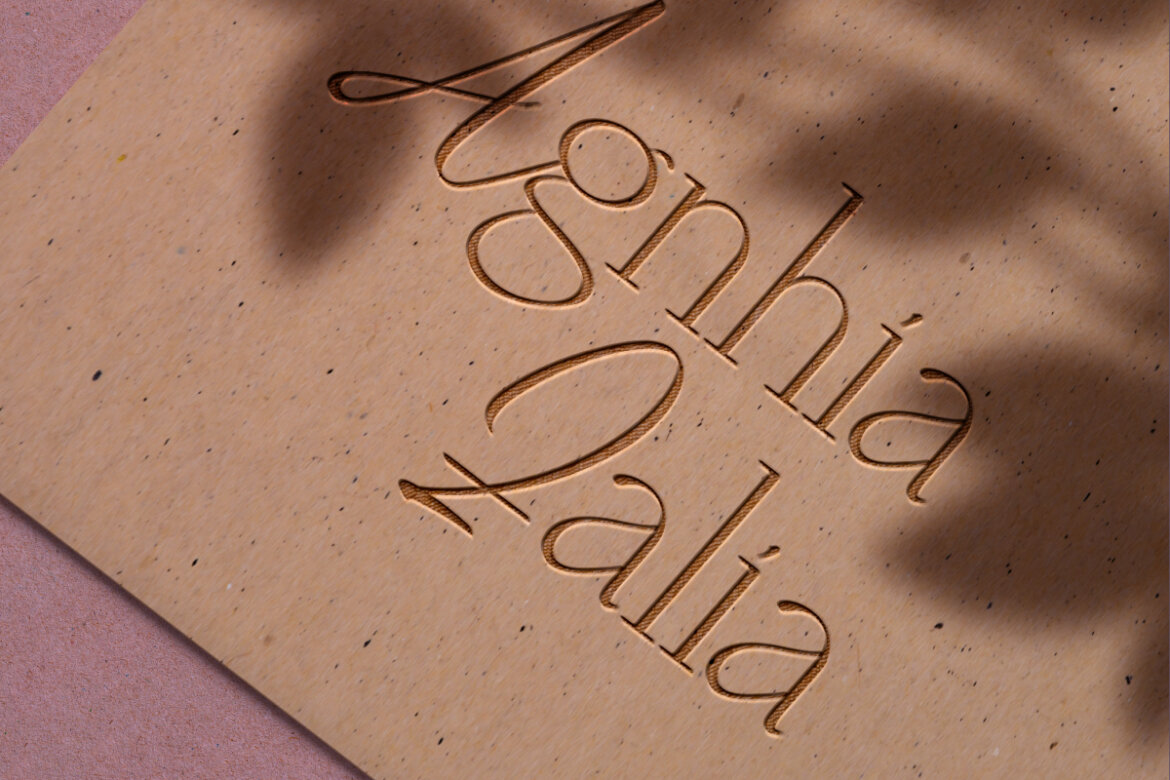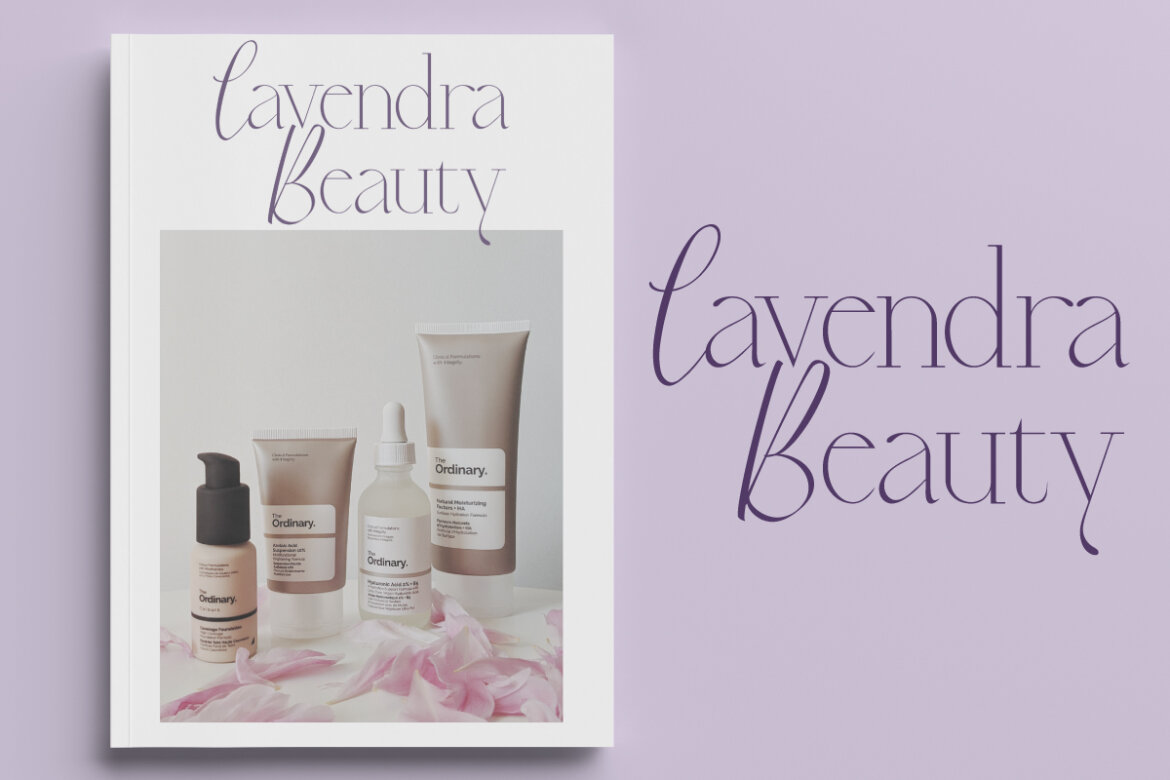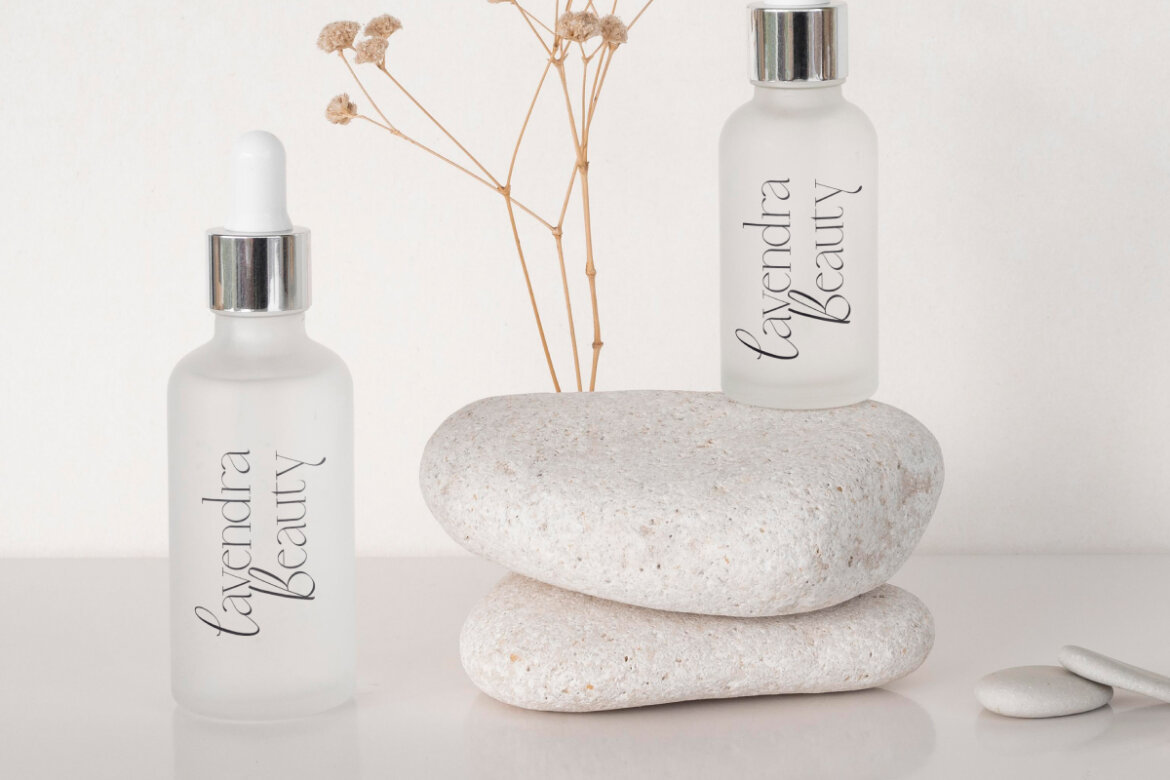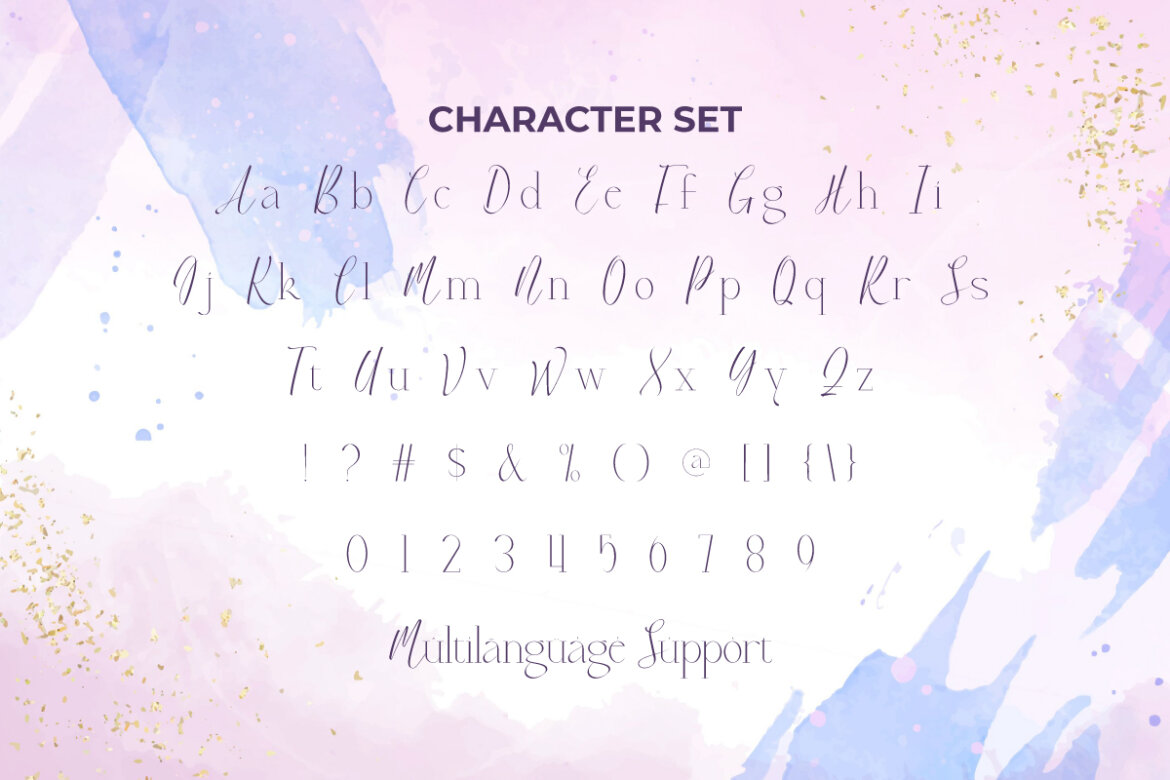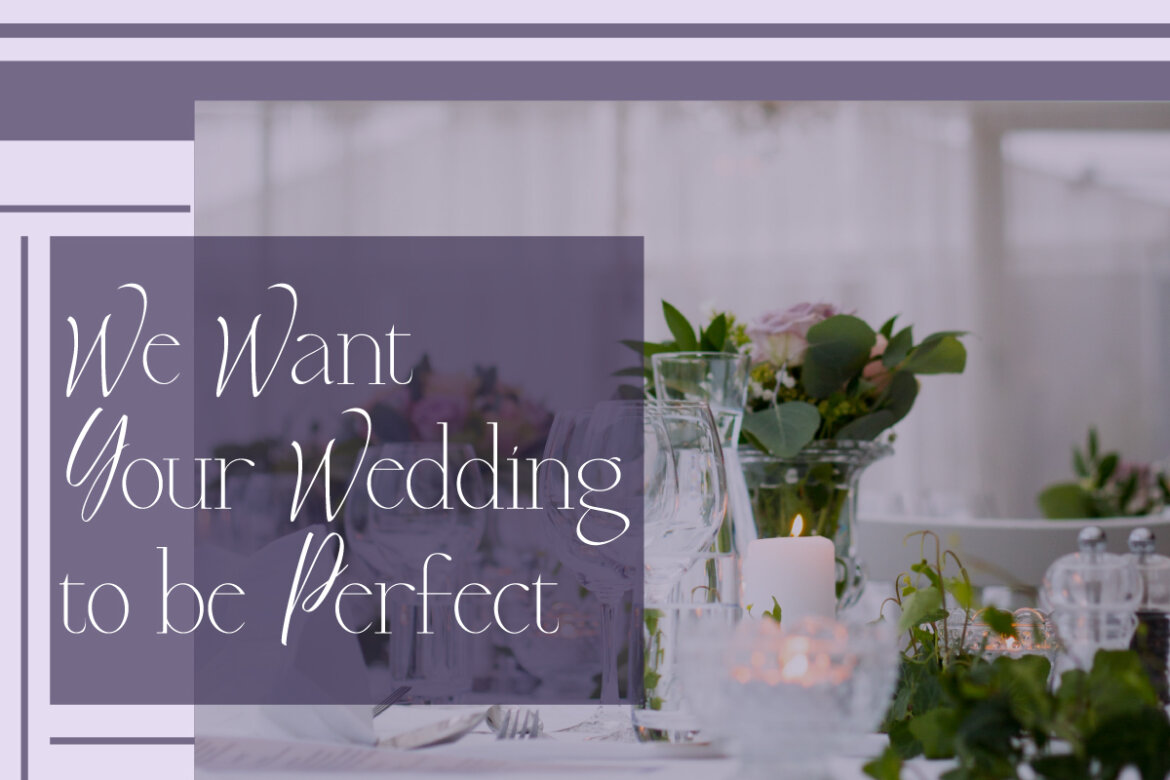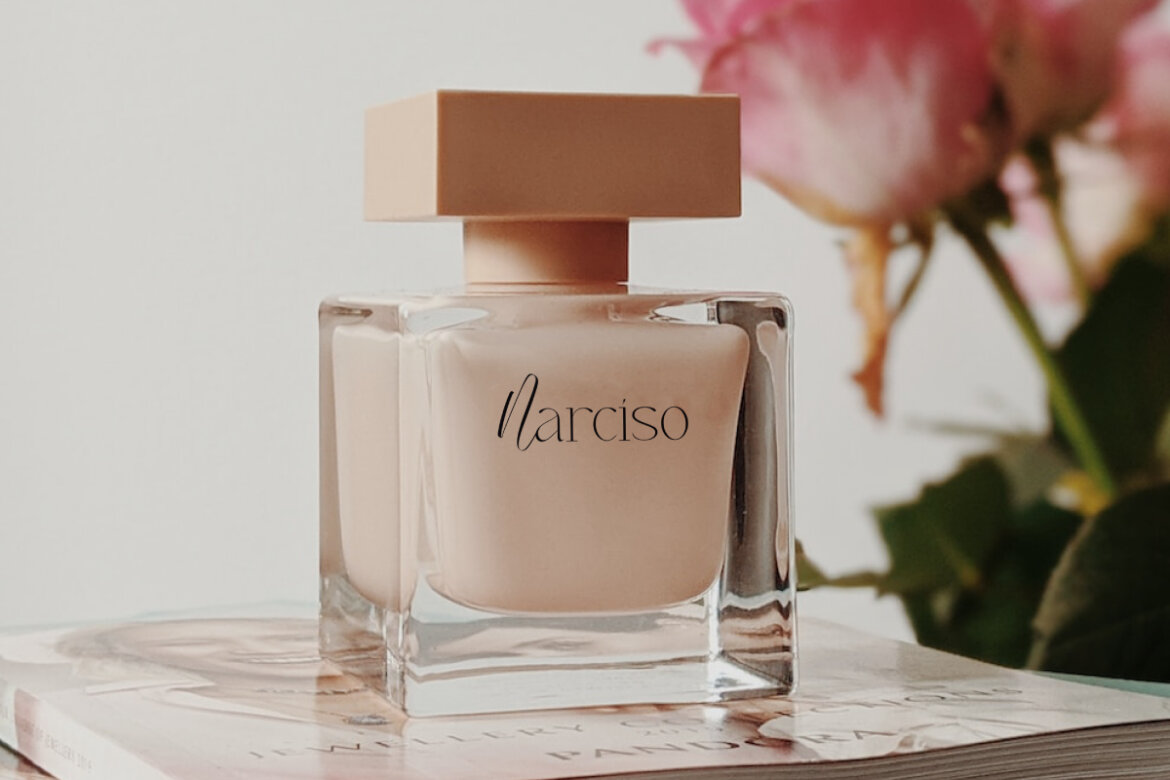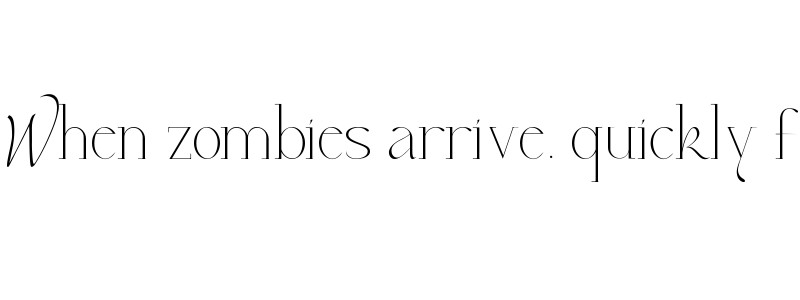
Lavendra FREE Font
Lavendra
Lavendra Font is a beautiful display font with an elegant touch that offers charming typography. This gives a truly chic touch to whatever your design needs are, such as album cover, apps themes, banners, branding logo, brochure, cards design, flyers, headers, invitations, labels, mockup designs, product packaging, quotes, stickers, titles, watermarks, website and anything that requires a gentle feminine look.
Lavendra Font is an impeccably crafted display font bringing a trendy and classy feel to your luxury projects. The original style of the font creates a personal touch and is perfect for authors, beauty clinic, boutique, cafeteria, clothing brand, cosmetic, fashion, florist, furniture, graphic design, homeware, hotel, jewelry, photography, pottery, printing, publishing, restaurant, skincare, spa salon, wedding organizer, and much more.